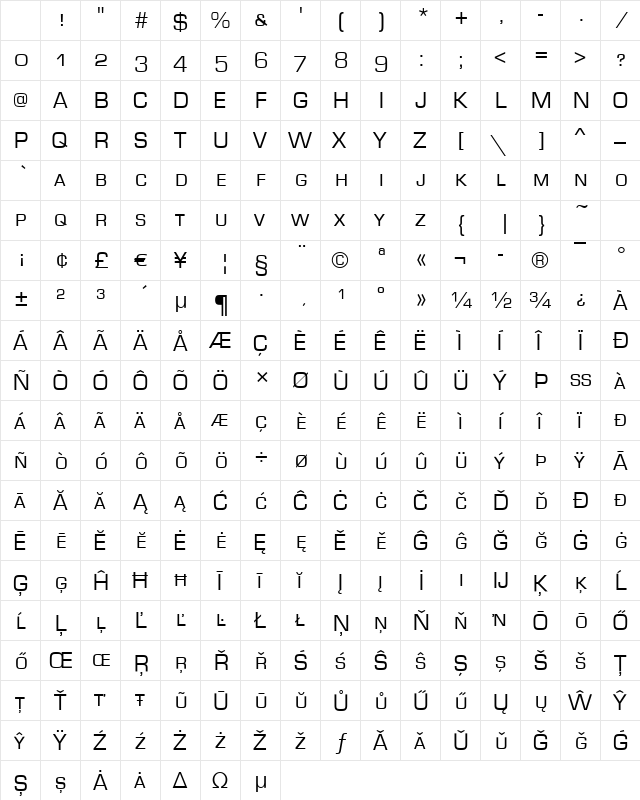
MicroSquare-Caps Regular
Design Context for MicroSquare-Caps
MicroSquare-Caps is a composed and adaptable typeface that performs quietly and consistently across a wide range of design contexts.